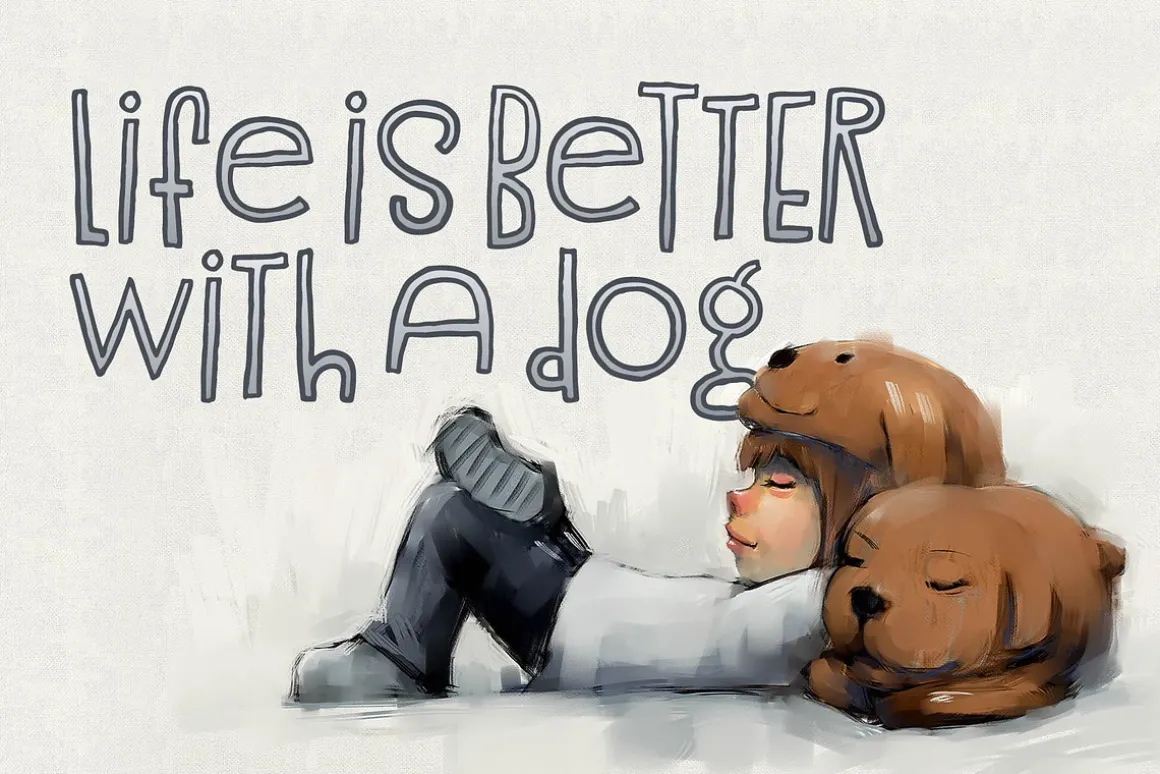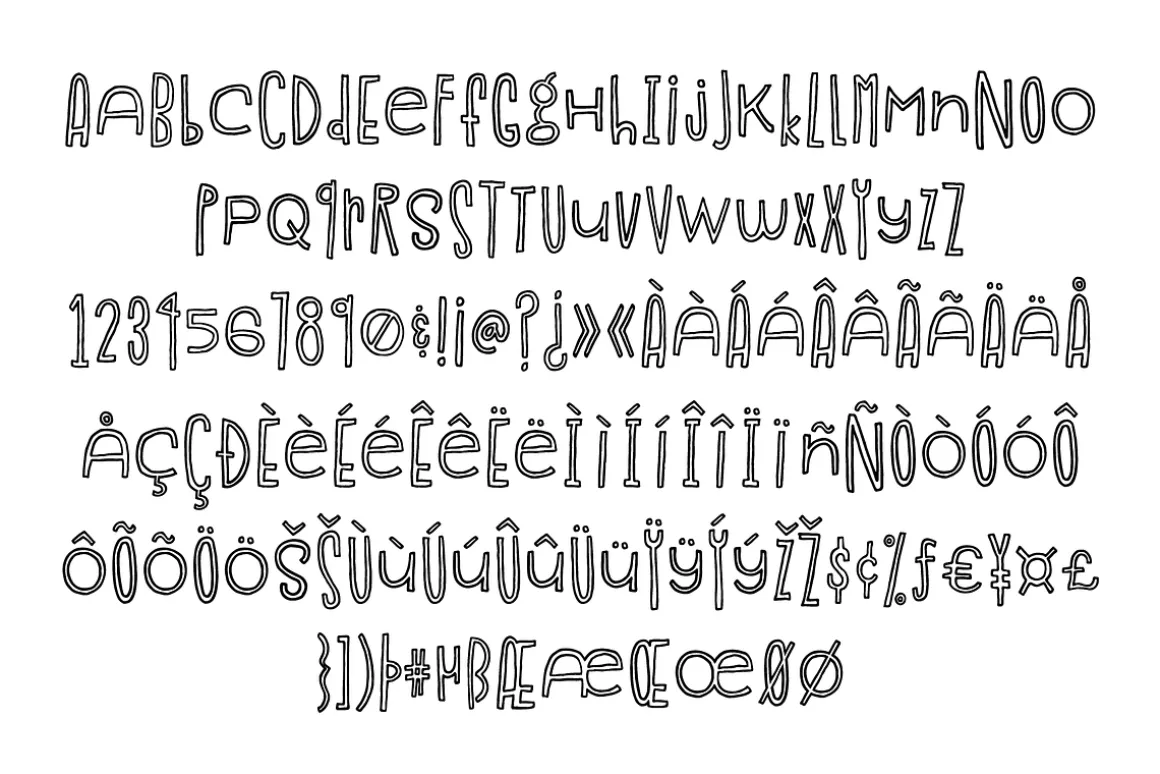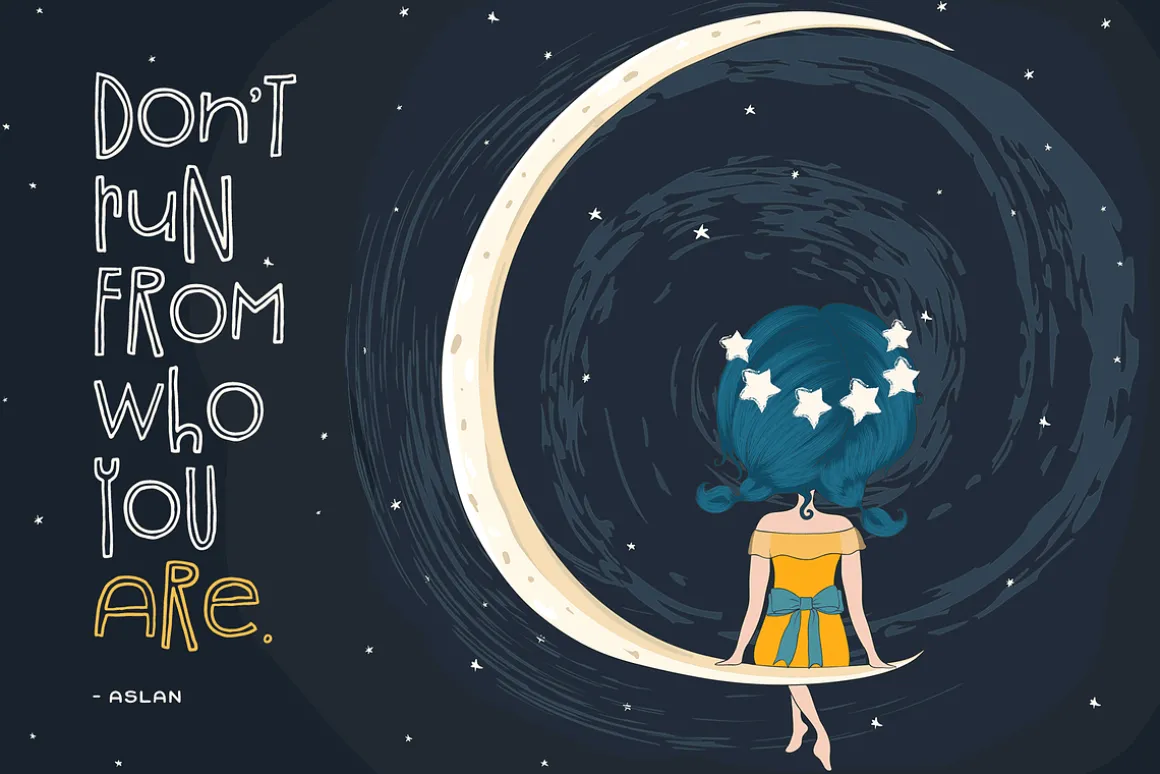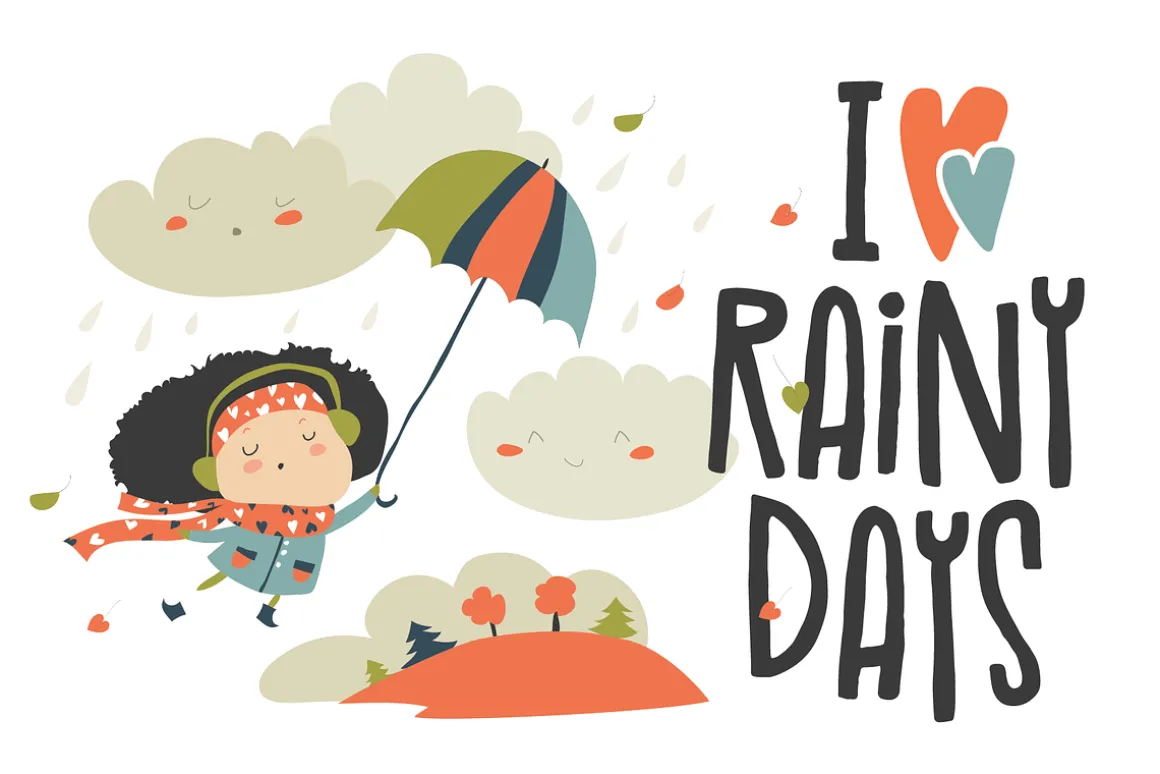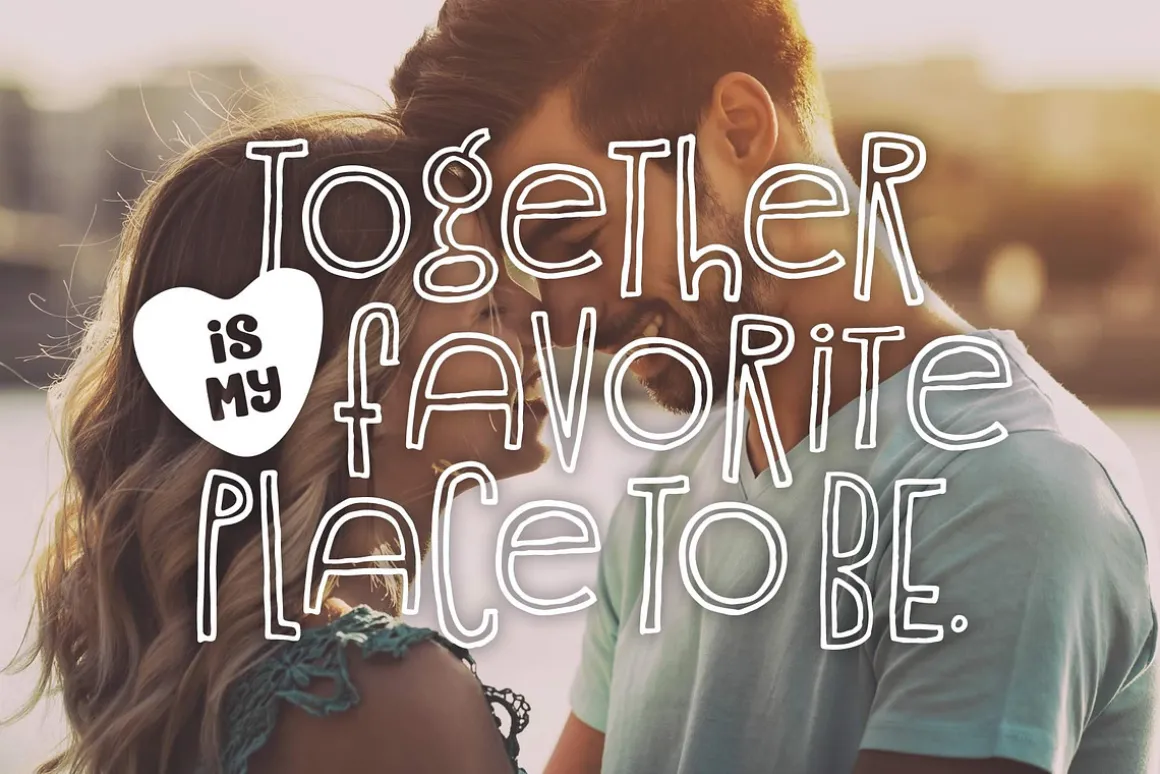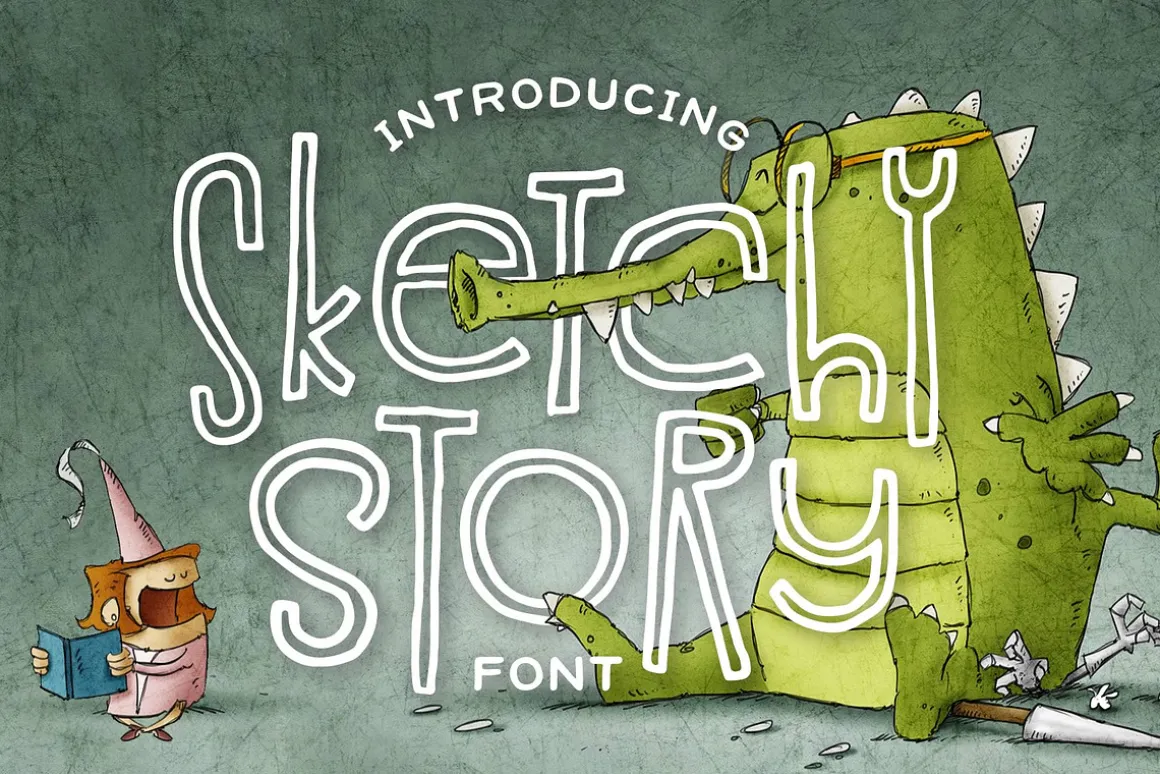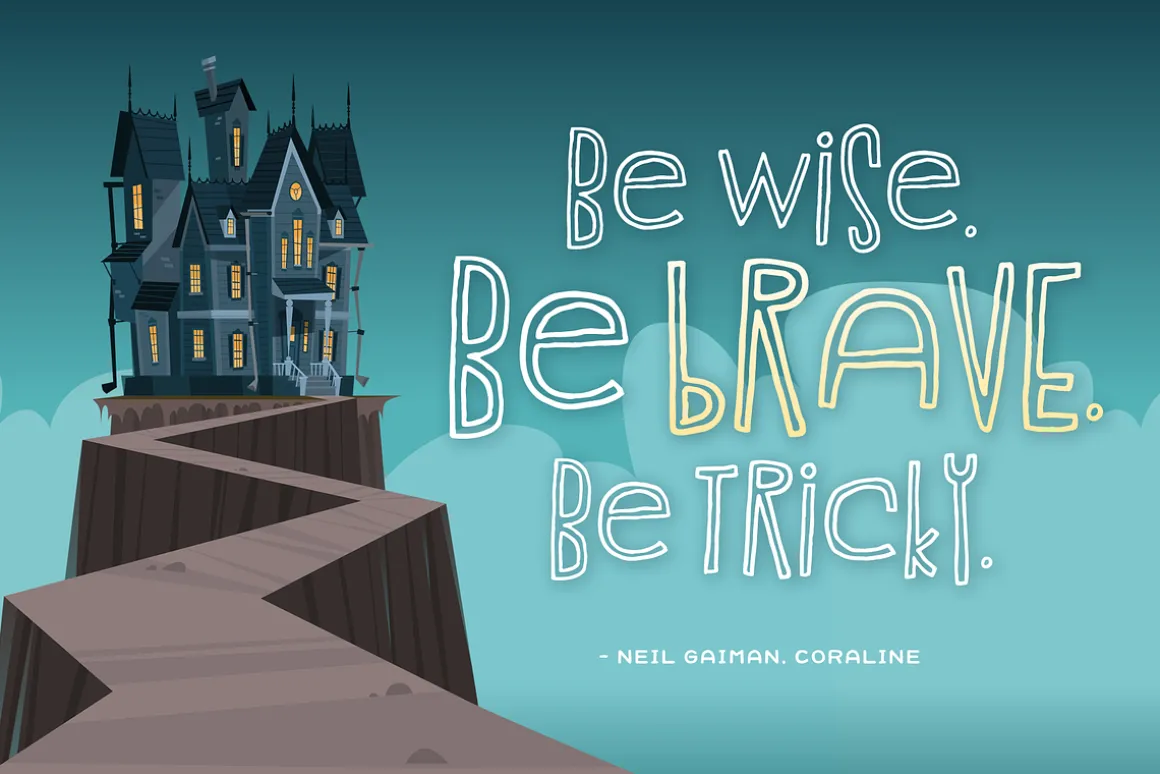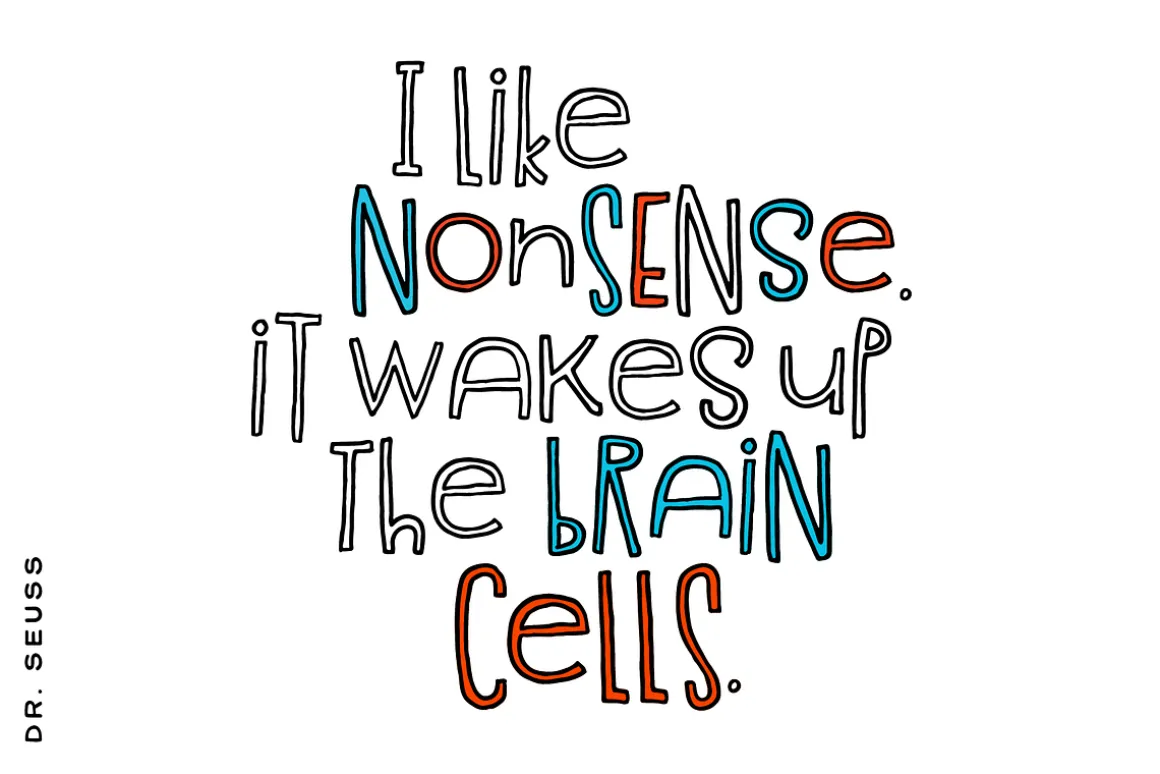
Sketchy Story is a rough edged, skinny font with a very hand-drawn feel. It comes in two versions: outline and filled, which can be used separately or on top of one another. This font is perfect for nursery prints, children’s books, anything that could use a bit of personality and fun.